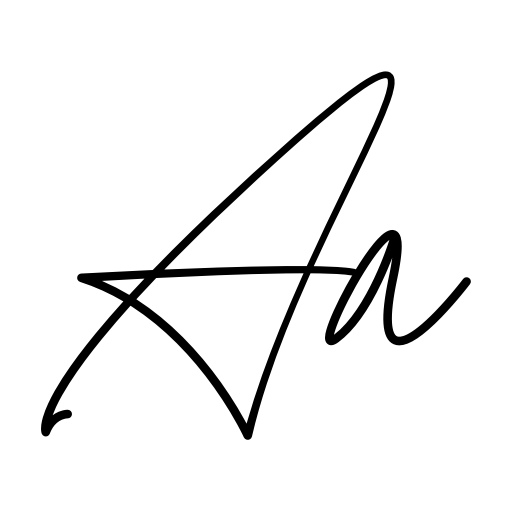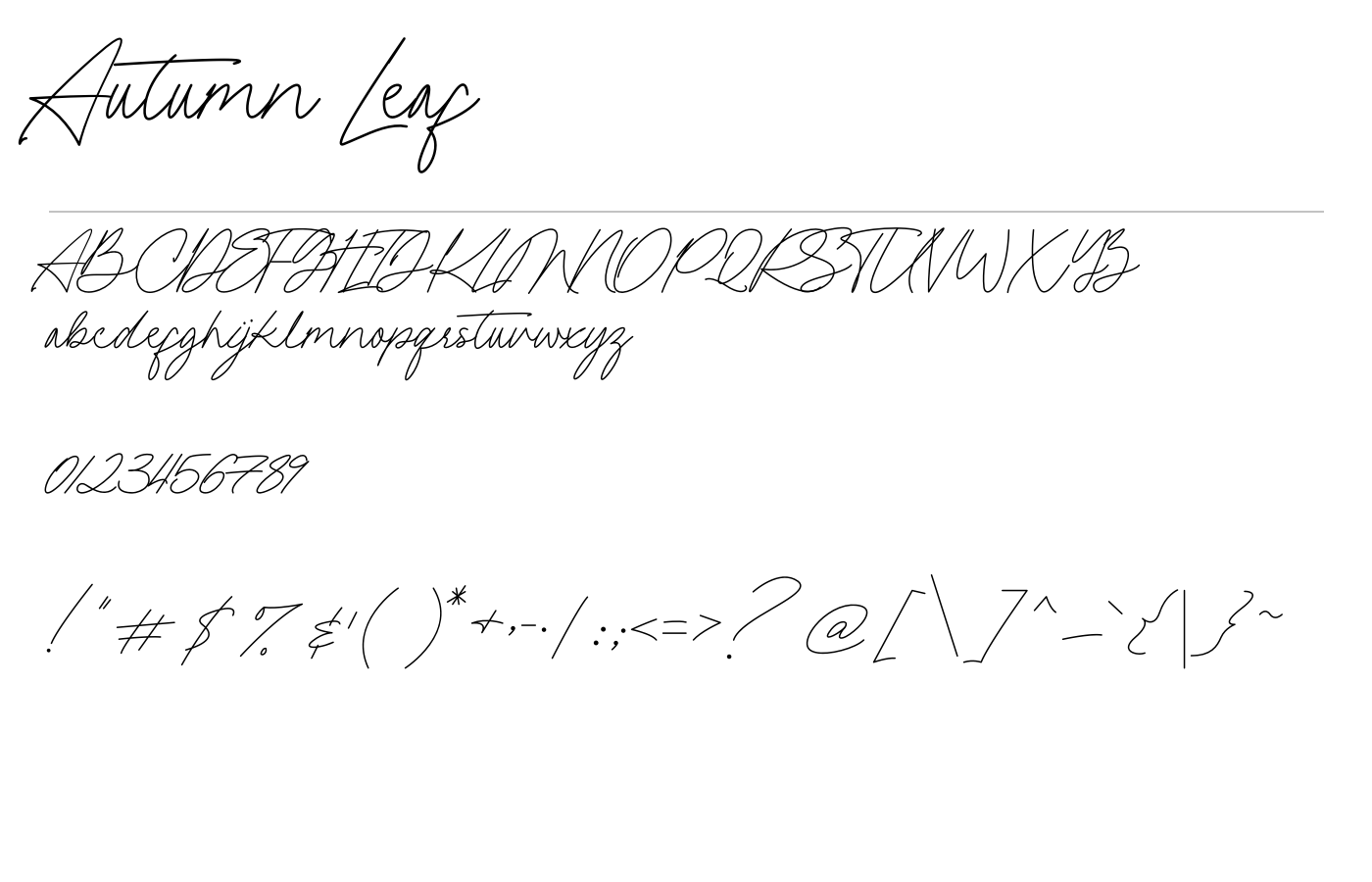
Autumn Leaf is a delicate, airy script font with a hand-drawn, casual elegance that feels personal yet refined. Its slender, flowing strokes and lightly slanted letterforms create a graceful, approachable style perfect for invitations, branding, and creative projects seeking a natural, sophisticated touch. This font works especially well in designs that want to evoke warmth, creativity, and intimate charm.
Autumn Leaf Font
About Autumn Leaf Font